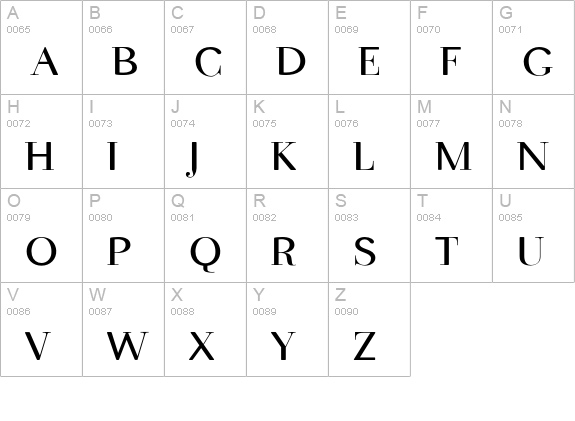
Introducing Leash, a stunningly versatile font that embodies both elegance and modernity. Its sleek and sophisticated design makes it the perfect choice for a wide range of projects, from logos and branding to invitations and editorial designs. With its clean lines and impeccable attention to detail, Leash effortlessly combines classic charm with contemporary flair. But what truly sets Leash apart is its accessibility. This remarkable font is not only visually captivating, but it is also available for free download at FontsMarket.com. Yes, you read that right – Leash can be yours at absolutely no cost! Whether you're a professional designer or a creative enthusiast, this font is a valuable addition to your collection, and its affordability makes it even more appealing. With Leash, your designs will exude a sense of refinement and sophistication. Its carefully crafted letterforms create a harmonious rhythm that captivates the eye and adds a touch of class to any project. From elegant wedding invitations to sleek corporate identities, Leash adapts effortlessly to any aesthetic, elevating your designs to new heights. The versatility of Leash knows no bounds. Its extensive character set includes a wide range of ligatures, alternate glyphs, and stylistic alternates, allowing you to customize and personalize your text with ease. Whether you're looking to add a unique flourish to a headline or create a custom logotype, Leash has the tools to bring your vision to life. So why wait? Embrace the beauty and freedom of Leash font today. Download it for free at FontsMarket.com and unlock a world of design possibilities. Elevate your projects to the next level with this remarkable font and watch as your creativity soars. Leash font – where elegance meets accessibility.